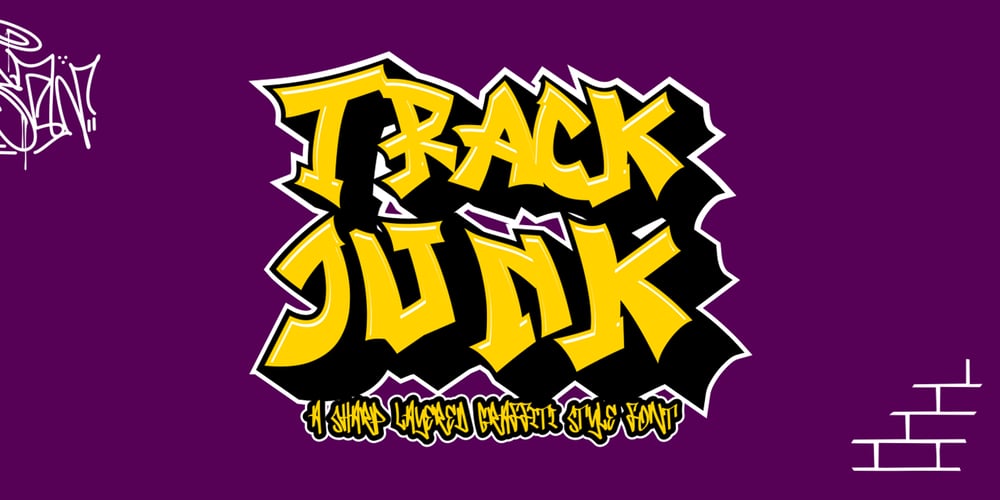
Track Junk Font Family was designed by Sipanji and published by Sipanji21. Track Junk contains 3 styles and family package options. Track Junk is a bold and sharp layered graffiti-style font designed with jagged, edgy lines that make each character stand out. This font offers multiple layers, such as solid, outline, and shadow, to create a striking 3D effect that adds depth and dimension. Perfect for street art, urban designs, and creative projects that demand a raw and energetic aesthetic, Track Junk brings a rebellious and dynamic vibe to any design it’s applied to. Whether for posters, album covers, or graffiti-inspired artwork, this font is sure to make an impact.